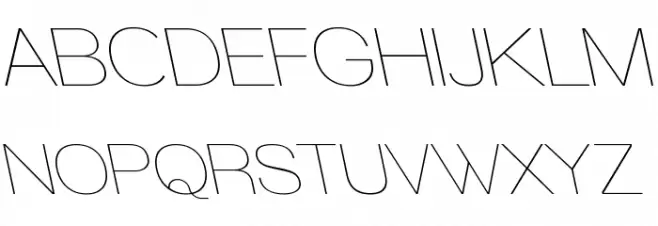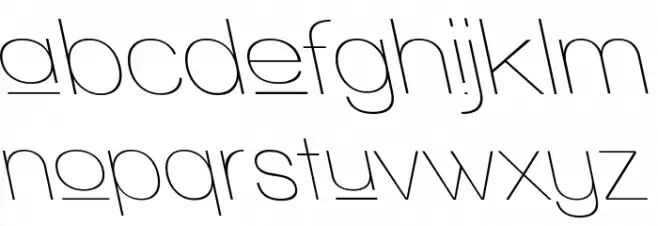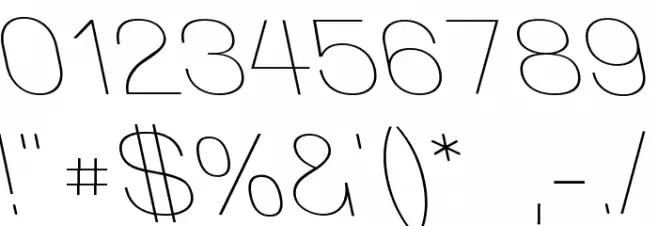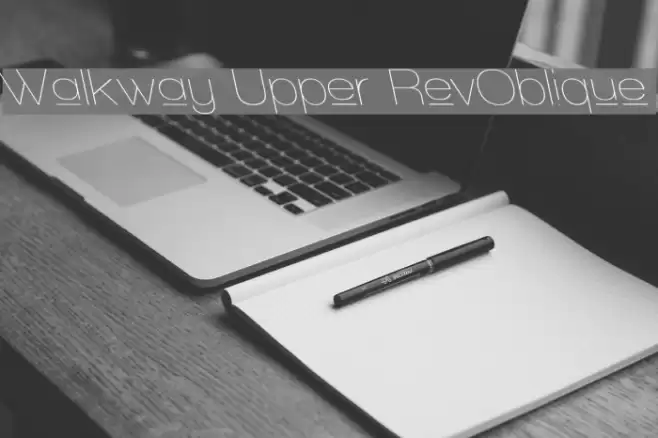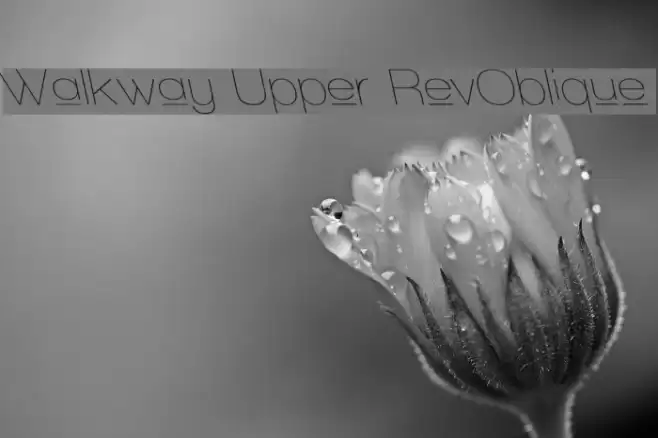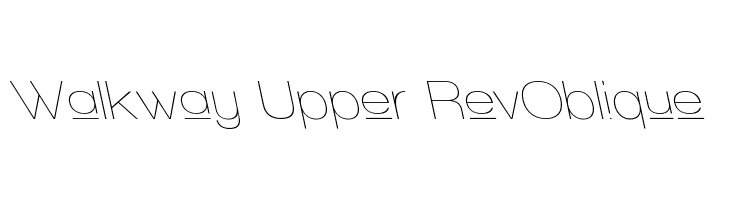
Walkway Upper RevOblique
This font features a sleek, modern design with a distinct oblique orientation. The characters are crafted with clean, straight lines and a consistent stroke width, giving it a minimalist and contemporary appearance. The uppercase and lowercase letters maintain a uniform height, creating a harmonious flow across text. The numerals are equally balanced, complementing the alphabetic characters. Special characters are designed with the same precision, ensuring versatility in various applications. The overall style is elegant yet understated, making it suitable for a wide range of design projects.
A modern, oblique font with clean lines and consistent stroke width.
- Proposed Projects: Ideal for branding, editorial design, and digital interfaces where a modern aesthetic is desired.